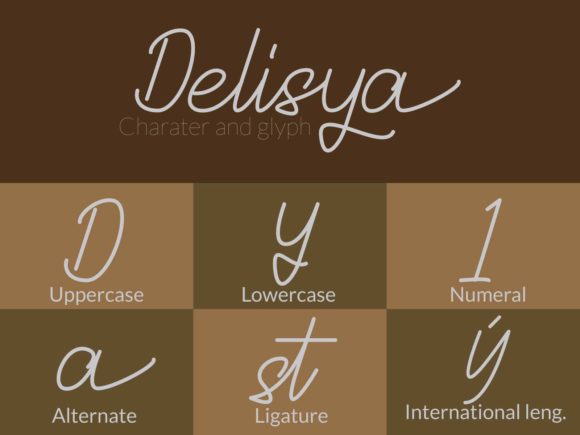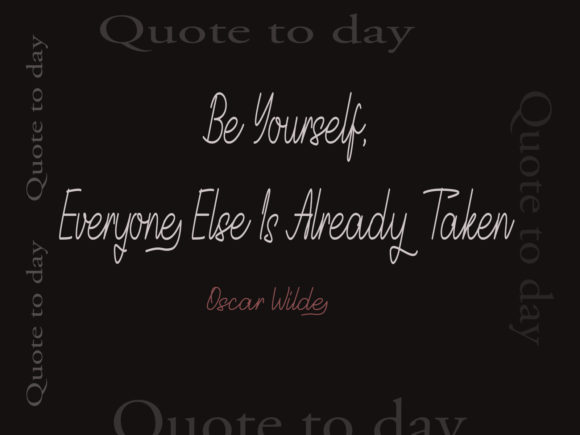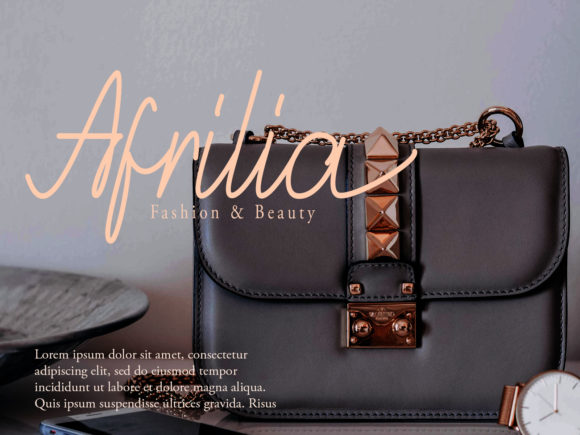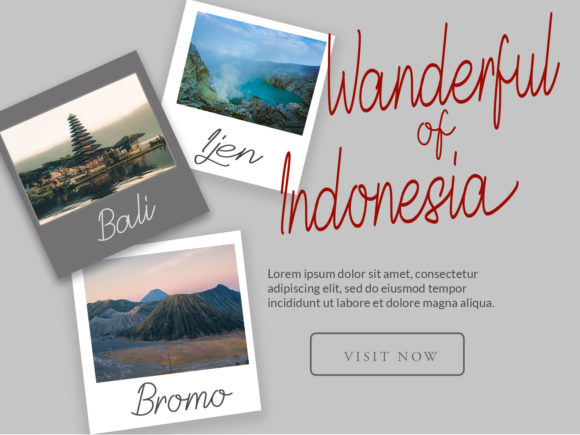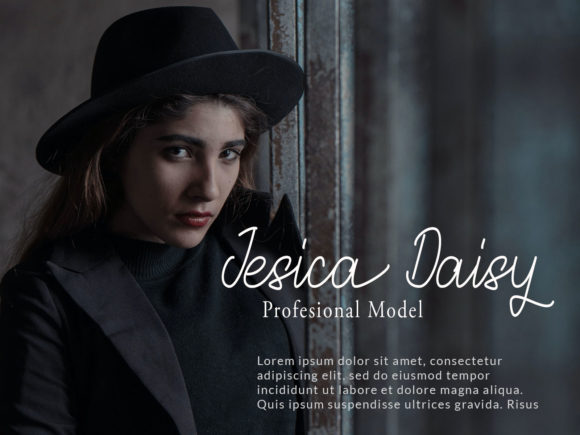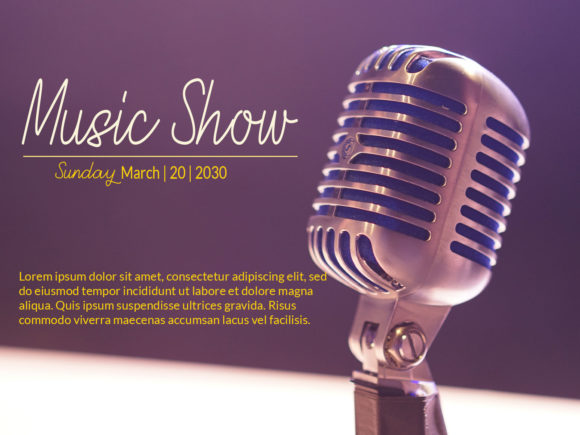
Have you ever stared at a blank sheet of paper, waiting for inspiration to strike? For designers, those moments can be the most thrilling – a spark of creativity that sets off a chain reaction of ideas and possibilities. And sometimes, all it takes is the right font to bring those ideas to life.
Enter the Delisya Font, a stunning script font that exudes elegance and sophistication. Whether you’re crafting a wedding invitation, a heartfelt thank you note, or a logo that screams personality, Delisya is the perfect companion. Its PUA encoding ensures that every glyph and swash is at your fingertips, making it a valuable addition to any designer’s toolkit.
Delisya Font Key Features
- Font Family: Delisya Font is a unique, hand-drawn script font with a modern and elegant design.
- Unique Characteristics: Delisya Font features a distinctive, flowing script style with intricate details and subtle texture, making it perfect for creating eye-catching designs.
Delisya Font Review
Delisya Font is a beautiful, elegant script font that’s perfect for creating eye-catching headlines and titles. It’s a great choice for designers who want to add a touch of sophistication and whimsy to their designs.
- ✨ Elegant and refined feel: Delisya Font has a classic, high-end look that’s perfect for luxury brands and high-end marketing materials.
- ✨ Wide range of languages supported: Delisya Font supports a wide range of languages, making it a great choice for global brands and companies that need to communicate with diverse audiences.
- ✨ Beautiful letterforms: Delisya Font’s letterforms are intricately designed and have a beautiful, flowing feel that’s perfect for creating visually appealing typography.
- ⚠️ Limited font weights: Delisya Font only comes in a few font weights, which may limit its versatility for certain design projects.
- ⚠️ Not ideal for body text: While Delisya Font is perfect for headlines and titles, it’s not ideal for body text due to its complex letterforms and high x-height.
Delisya Font is a beautiful and elegant script font that’s perfect for creating eye-catching headlines and titles. While it may have some limitations, it’s a great choice for designers who want to add a touch of sophistication and whimsy to their designs.
Delisya font is ideal for creating eye-catching headings and titles. It’s also great for use in logos, branding materials, and marketing materials.
For best results, use Delisya font in conjunction with bold colors and simple backgrounds to create a striking visual effect.
Alternatives to Delisya Font for Designers
The Great Vibes Font is a modern, elegant script font that is perfect for creating a sophisticated and luxurious feel. It is ideal for use in branding, advertising, and packaging designs. Great Vibes Font is more elegant and refined compared to Delisya Font, which has a more playful and casual vibe.
Carolyna Pro Font is a stylish, modern script font that is great for creating a high-end and luxurious feel. It is perfect for use in branding, advertising, and editorial designs. Carolyna Pro Font is more sophisticated and polished compared to Delisya Font, which has a more casual and laid-back feel.
The Alex Brush Font is a beautiful, elegant script font that is perfect for creating a personal and emotional connection with the audience. It is ideal for use in branding, advertising, and packaging designs. Alex Brush Font is more elegant and refined compared to Delisya Font, which has a more playful and casual vibe.